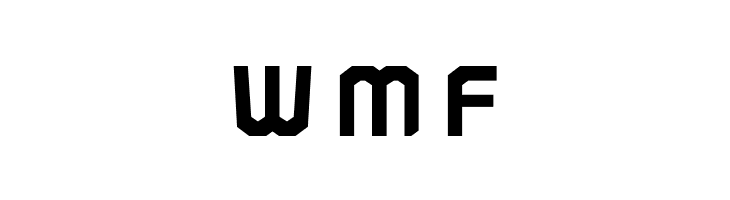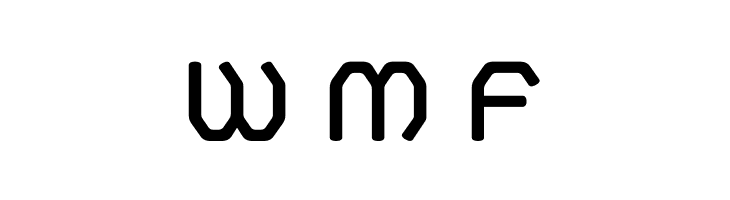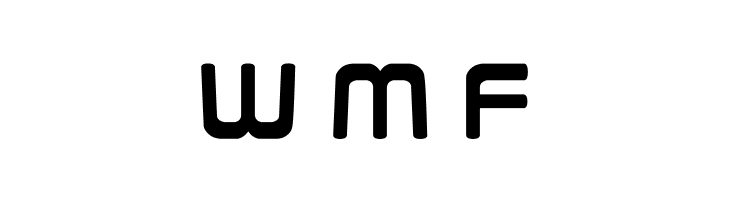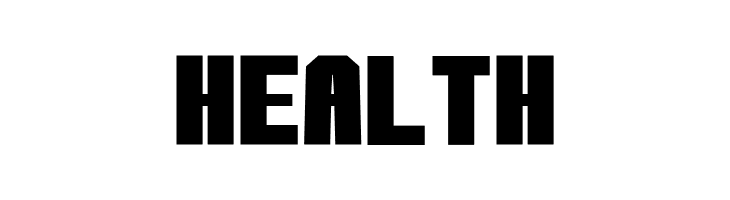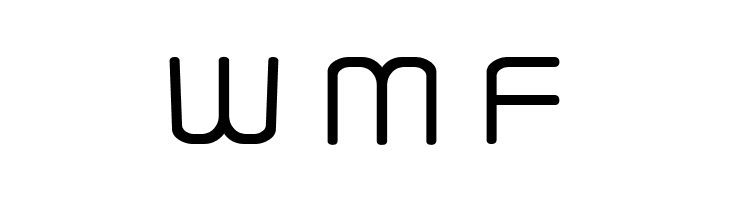
A bold, geometric font with a blocky, industrial style.
A geometric, modern font with octagonal shapes and consistent line thickness.
A bold, rounded font with a modern, futuristic style.
A bold, geometric font with strong, angular lines and a blocky appearance.
A geometric, modern font with octagonal shapes and uniform thickness.
A modern, geometric font with rounded edges and uniform character width.